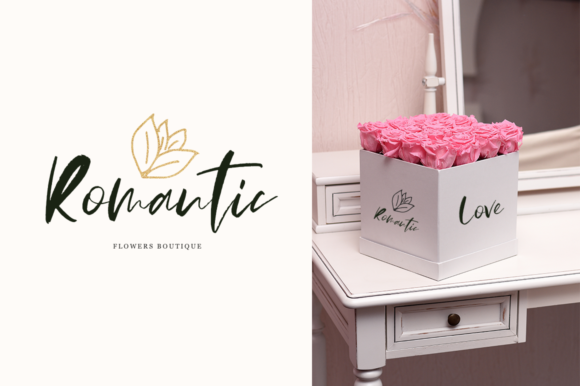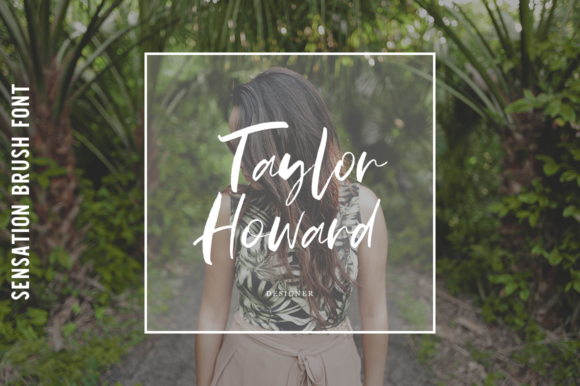
Sensation Font
db-ku.com - Script & Handwritten -- The Sensation is a natural handwritten brush font. It’s ideal for branding and decorating your projects, creating wedding invitations, book covers, marketing, and much more!